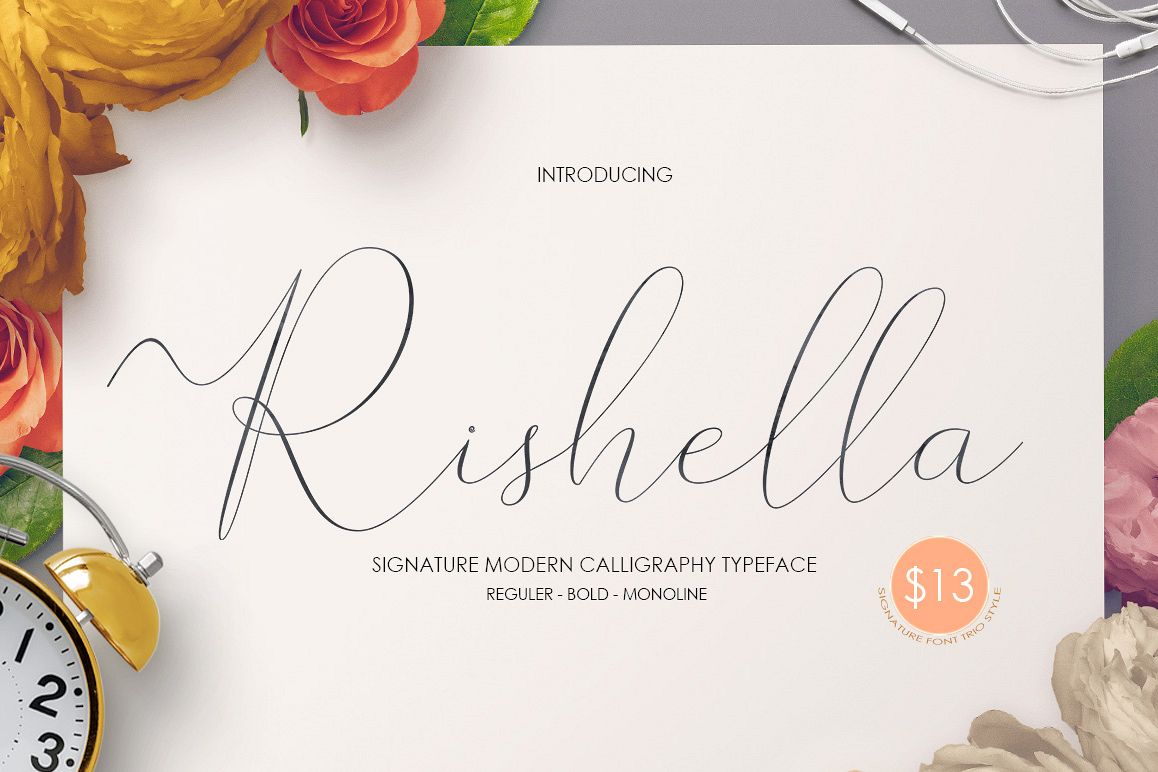
Rishella Signature Font
Rishella Signature Font.
A new modern Signature script font, with elegant touch, casual and lovely. It comes with a handy set of opentype stylistic, use the beautiful ligatures, alternates. You need a program that supports OpenType features such as Adobe Illustrator CS, Adobe Photoshop CC, Adobe Indesign, Microsoft Word 2010. It is perfect for logo, greetings, branding, quotes, prints, invitations and crafting. All lowercase letters include alternates, beginning & end swashes, that makes the font look fabulous!